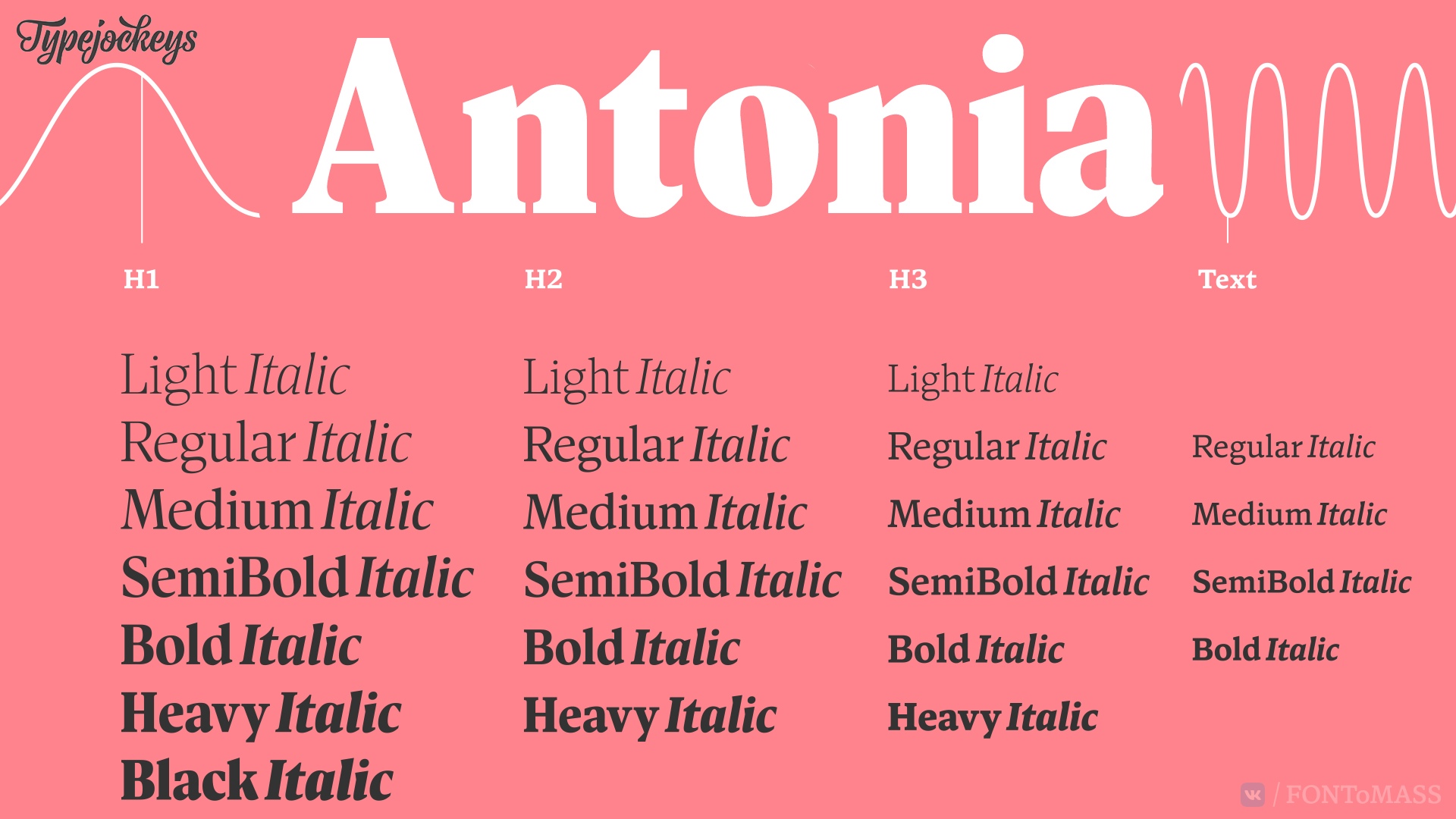
Antonia Font
Antonia Font is perfect for classical literature publications, academic presentations, traditional book design, sophisticated editorial layouts, cultural institution branding, fine art exhibition materials, museum catalog design, scholarly journals, historical documentation, elegant stationery, traditional wedding invitations, and refined projects that require timeless, classical typography with intellectual sophistication and cultural gravitas.
What makes Antonia Font so exciting is its timeless classical elegance and intellectual refinement that embodies the sophisticated beauty of traditional European typography and scholarly excellence. This typeface features well-proportioned letterforms with classical characteristics and refined details that create an immediate sense of cultural sophistication, academic authority, and timeless aesthetic appeal. The font's scholarly character and cultural heritage make it perfect for institutions and projects that want to communicate intellectual depth, traditional values, and the kind of cultural refinement that transcends fleeting design trends.
Antonia Font typically comes in multiple weights and styles including Light, Regular, Medium, Bold, and corresponding Italic variations. Many versions also include small caps, old-style numerals, classical ornaments, and extensive character sets that enhance the font's scholarly functionality and provide designers with comprehensive tools for creating academically credible, culturally sophisticated typography compositions.
Whether you're designing academic publications, cultural exhibition materials, or traditional institutional branding, Antonia Font delivers exceptional classical authority and intellectual appeal that resonates with audiences who value educational excellence and cultural sophistication. Its traditional proportions work beautifully in both formal publications and contemporary applications, maintaining its scholarly dignity across diverse intellectual contexts.
The masterfully crafted letterforms of Antonia Font demonstrate deep understanding of classical typography principles and scholarly communication requirements. Each character has been designed to honor the finest traditions of European type design while ensuring optimal readability for contemporary academic and cultural applications, making it particularly valuable for institutions where typography must convey both intellectual authority and cultural heritage.